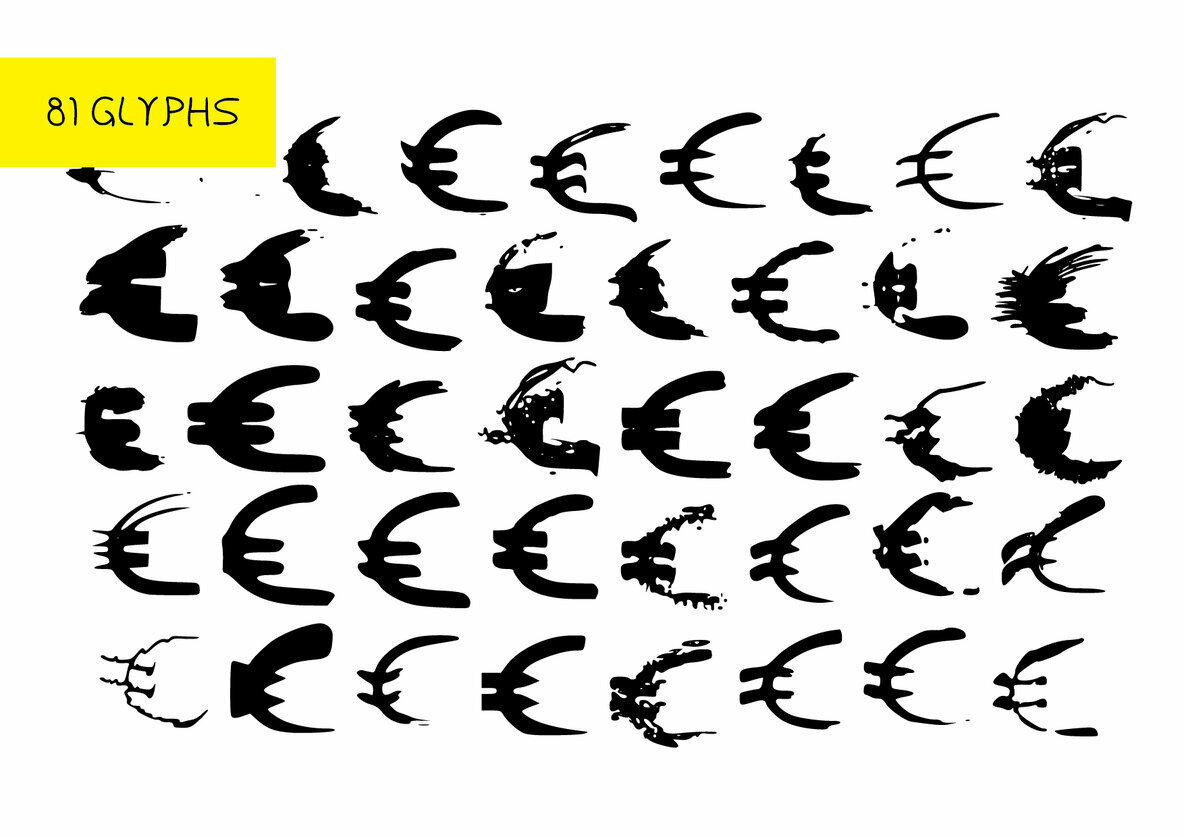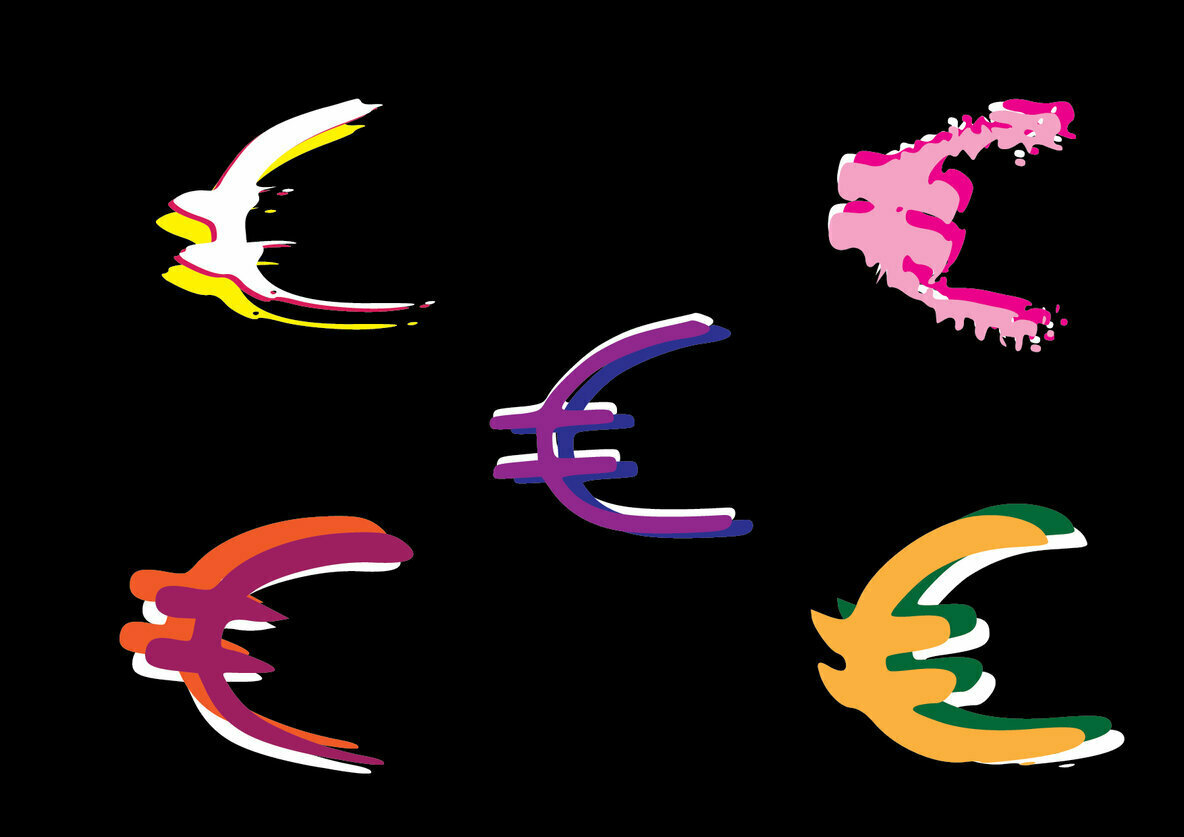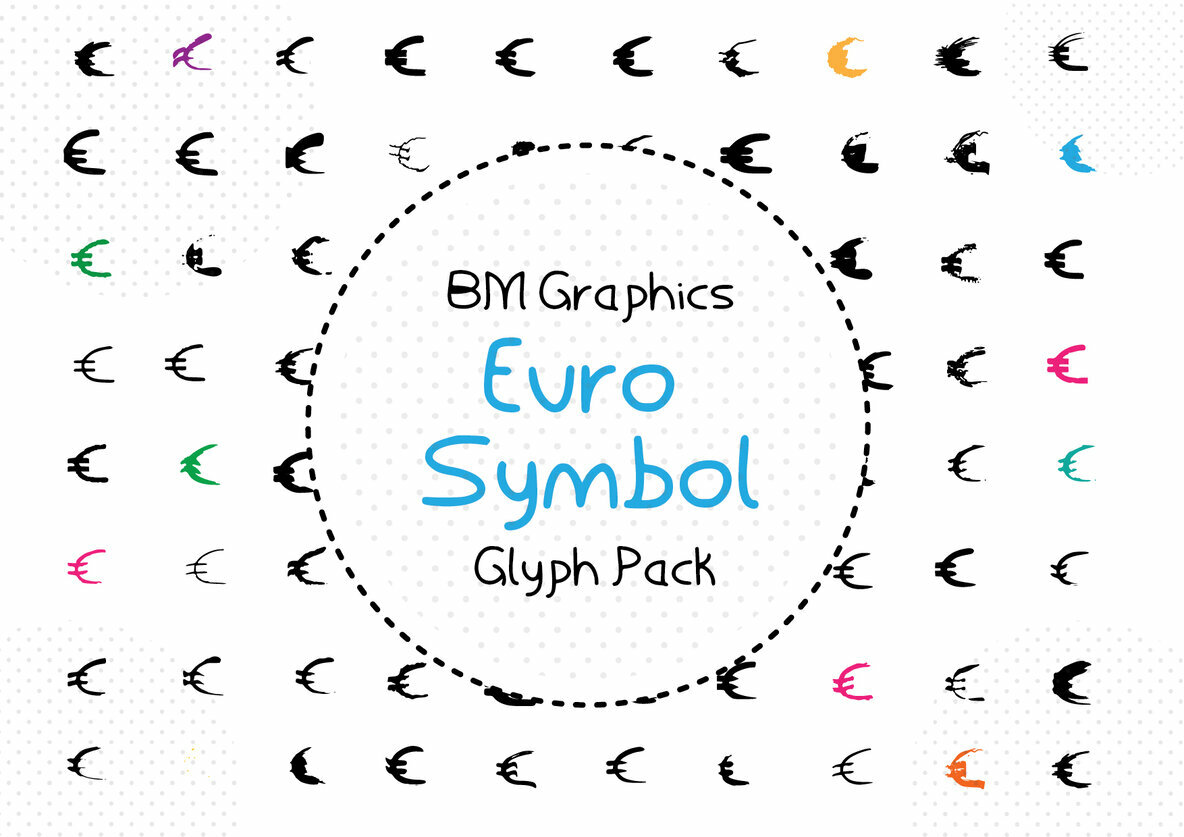
BM Graphics - Euro Symbol is a stunning dingbats font that combines 81 Glyphs. Use it for any design project that requires a hand drawn look and feel, there are so many to choose from!